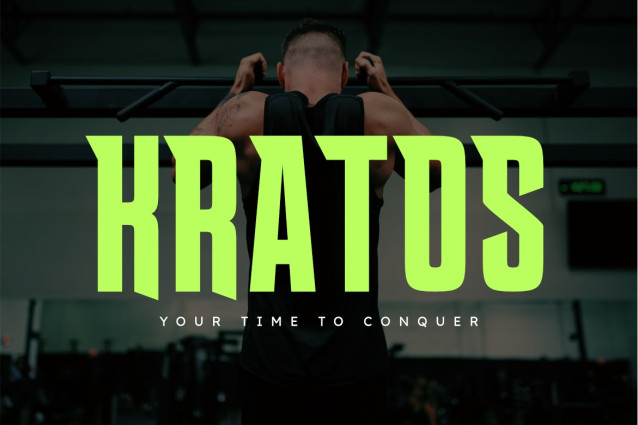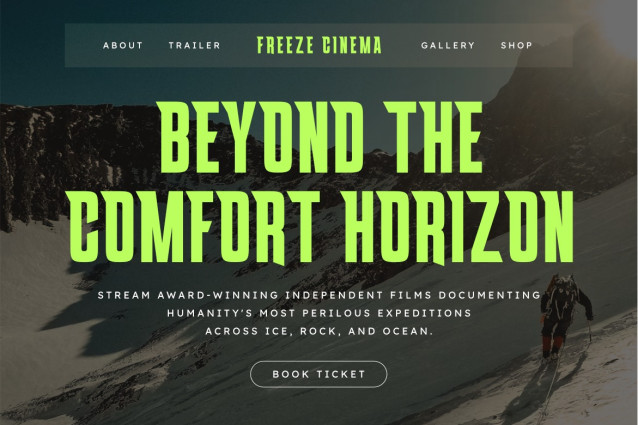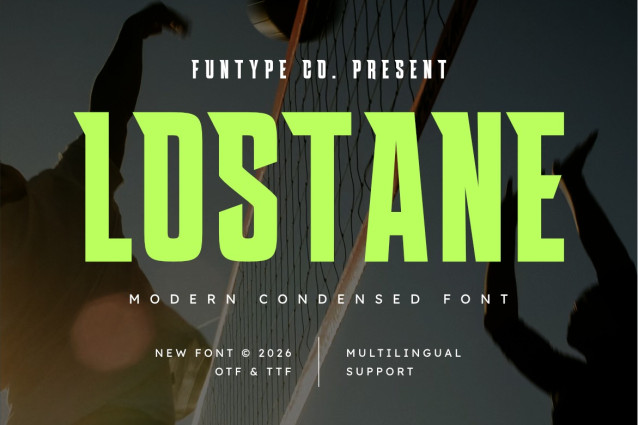
Lostane is a bold, high-impact, and modern condensed display font, engineered to bring a fierce athletic presence, tall narrow geometry, and dynamic display aesthetic to contemporary design layouts. Featuring a heavy vertical profile, space-saving condensed proportions, and aggressive sharp spur cutouts, Lostane introduces a high-octane sports broadcast identity, tournament event promotion, energetic editorial publishing, and prominent digital presentation designed to claim absolute visual focus.
This font family is the ultimate choice for creative directors, athletic event organizers, and media publication designers looking to implement a robust typography identity for major text hierarchies. Whether you are developing bold corporate enterprise logotypes, volleyball league posters, energetic beverage packaging labels, cinematic action movie title sequences, outdoor campaign headers, or prominent digital web banners, Lostane stands out with supreme legibility and commanding structural confidence.